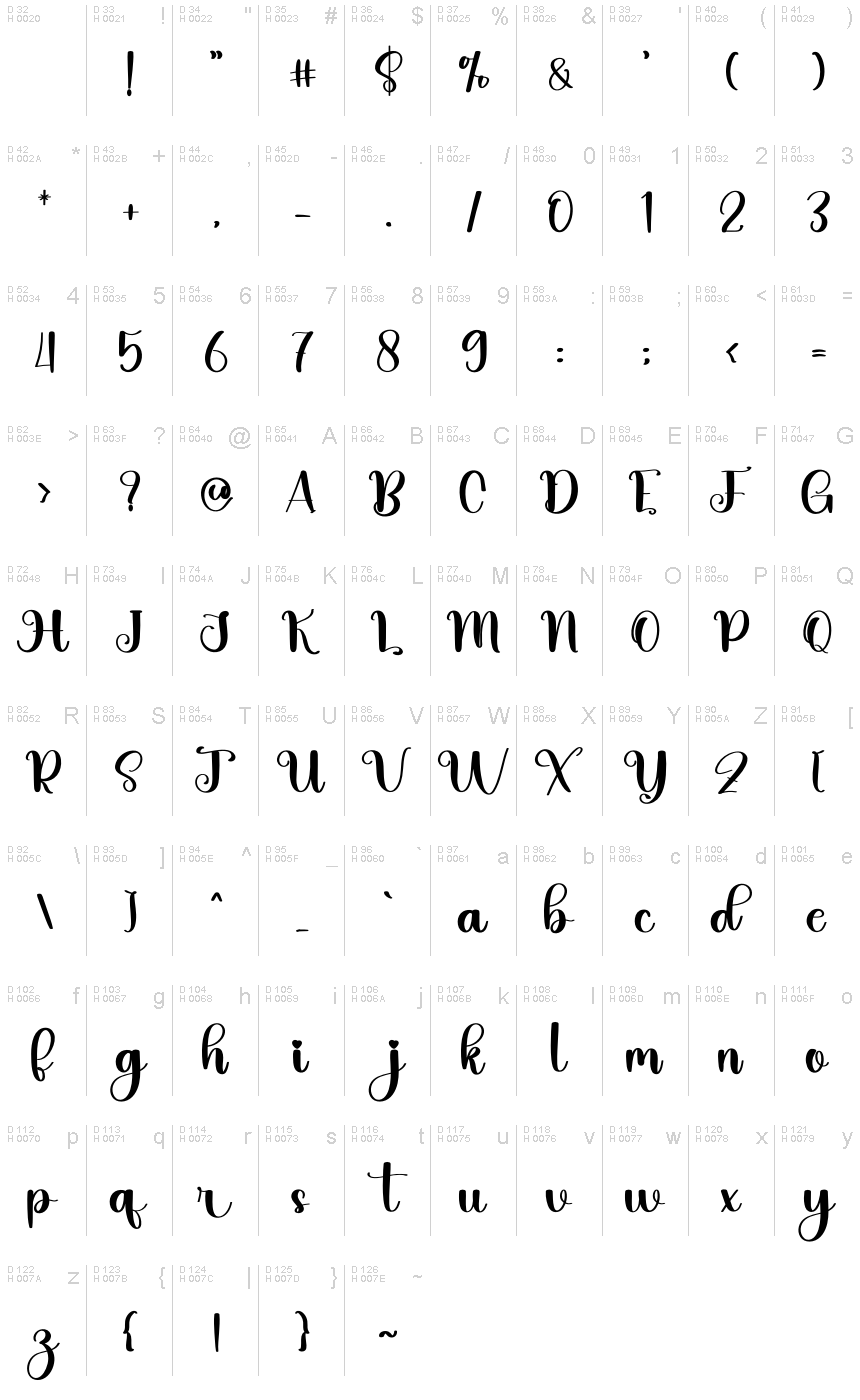
Christmas Lighter
Christmas Lighter, a creation by Inermedia Studio, embodies the festive cheer with its calligraphic flair. The font dances with an elegance reminiscent of holiday ribbons and winter's whimsy, making each character appear as if it were lovingly crafted by the stroke of an artist's hand. Its sweeping curves and delicate lines evoke a sense of joy and sophistication.
With its aesthetic appeal rooted in tradition yet bursting with contemporary charm, Christmas Lighter is ideal for seasonal greetings, event invitations, and any design endeavor that yearns for a touch of personalized grace. Its style lends itself to projects that require a festive or intimate atmosphere—where the warmth of handwritten calligraphy is as cherished as the message it conveys.